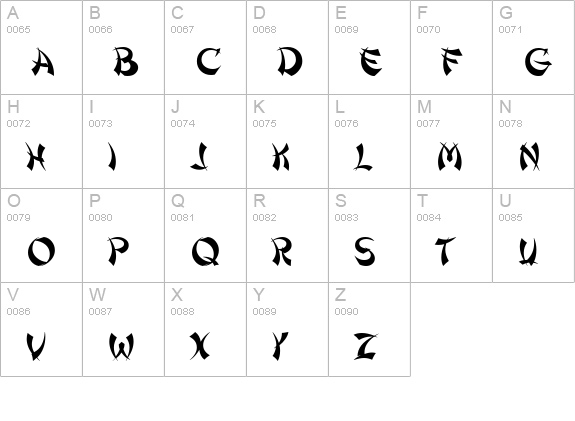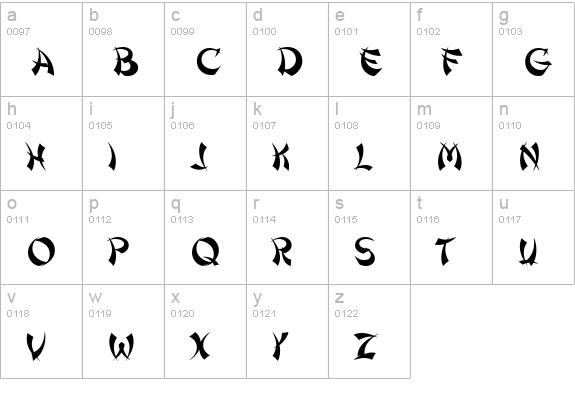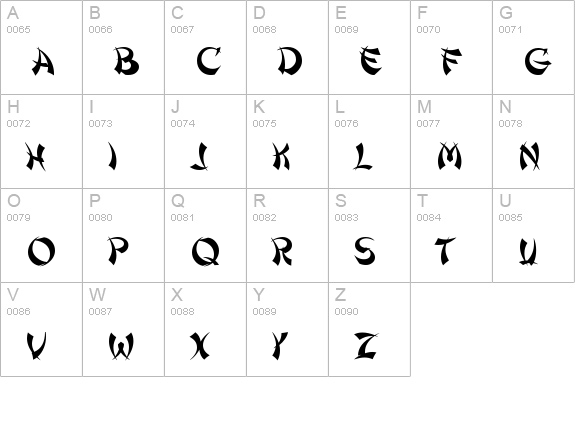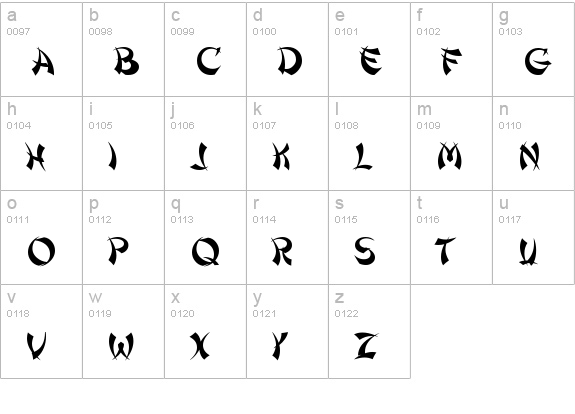
Shanghai Font Details
The Shanghai font is a captivating typeface that effortlessly combines elegance and sophistication. Its sleek lines and graceful curves make it a perfect choice for a wide range of design projects, from stylish logos to refined editorial layouts. This versatile font exudes a sense of modernity and timeless beauty, making it ideal for both digital and print applications. Its unique character set offers a myriad of possibilities, allowing designers to create stunning typographic compositions that truly stand out. One of the most remarkable features of the Shanghai font is that it is freely available to download at FontsMarket.com. This means that anyone can access this exquisite typeface without any cost, making it a valuable asset for both professional designers and typography enthusiasts. Whether you are working on a branding project, a website design, or a creative advertisement, the Shanghai font will effortlessly elevate your work to new heights. Its clean and legible letterforms ensure excellent readability, while its subtle details add a touch of sophistication and elegance. Embrace the beauty of Shanghai font and let your creativity flow. Download this remarkable typeface for free at FontsMarket.com and unlock a world of design possibilities. With the Shanghai font in your toolkit, your projects will exude a sense of refinement and aesthetic appeal that is sure to captivate audiences and make a lasting impression.